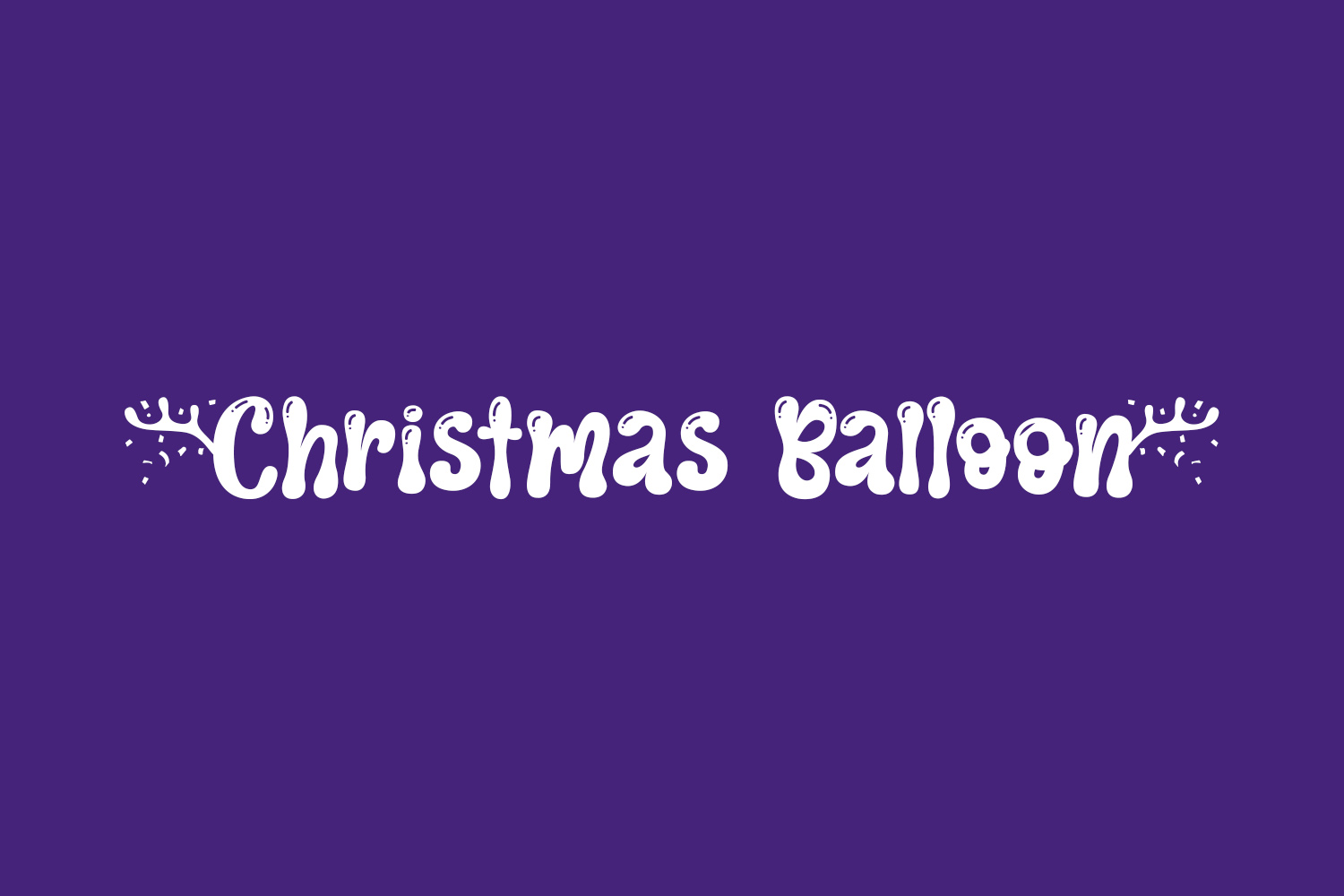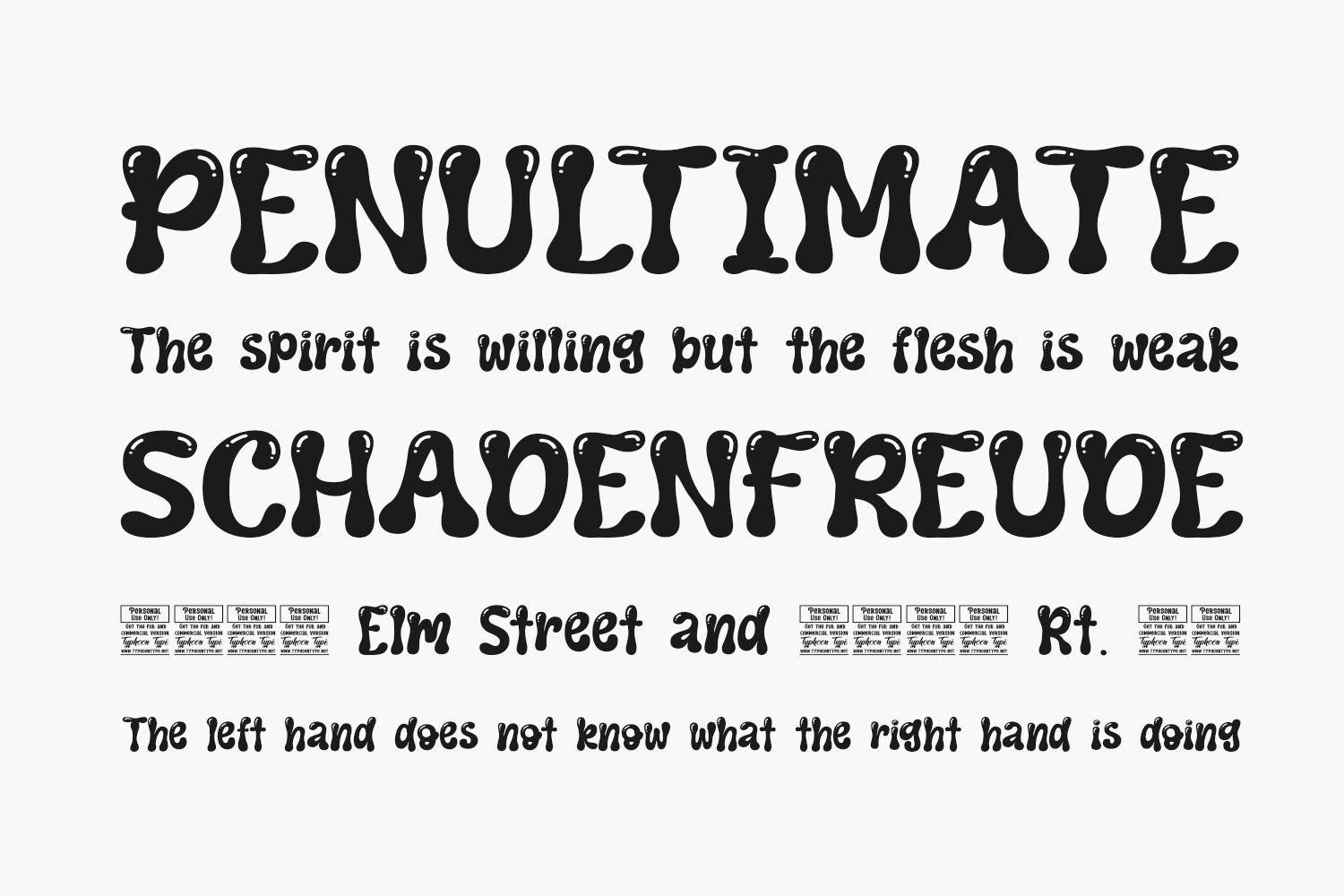
Introducing Christmas Balloon Free Font, an English font that gracefully captures the festive essence of Christmas. With its charming design, the characters adopt the delightful appearance of inflated balloons, featuring enlarged heads and tails reminiscent of cheerful bubbles. This font radiates a playful and vibrant quality, infusing a sense of merriment into your text.
The lively and contemporary feel of “Christmas Balloon” makes it an optimal choice for various advertising projects. Whether utilized in banners, social media posts, or promotional materials, this font injects a dose of fun and celebration, ensuring that your designs stand out and disseminate the holiday joy in a truly modern and captivating manner. Christmas Balloon Free Font is a demo and free for personal use only. Please purchase the full version for commercial use.